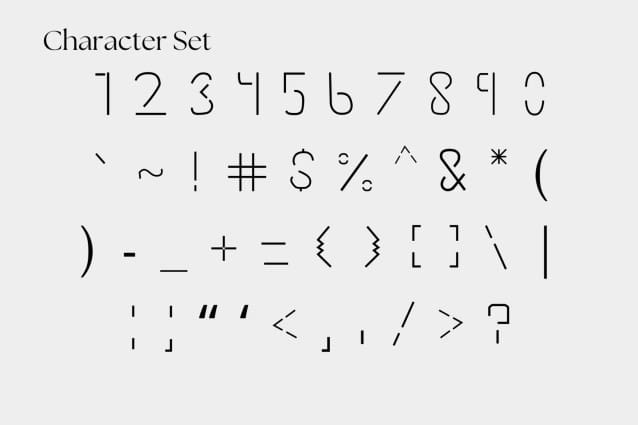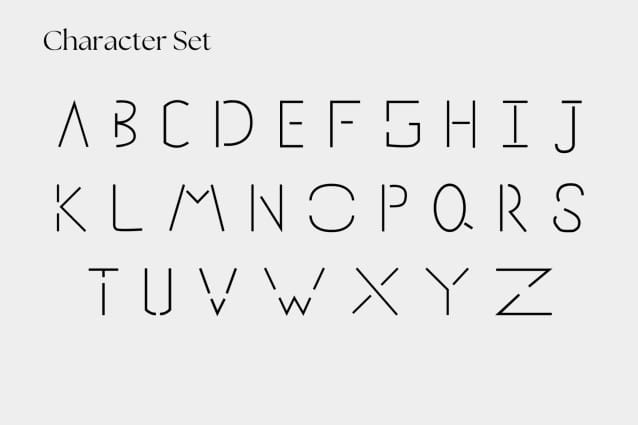
Hone Font
Hone Font is a meticulously designed monoline font that embodies modern sophistication and minimalistic elegance. Its seamless, uniform strokes and geometric structure create a striking balance between simplicity and boldness. Every letterform is crafted with precision, giving Hone a sleek and contemporary aesthetic.